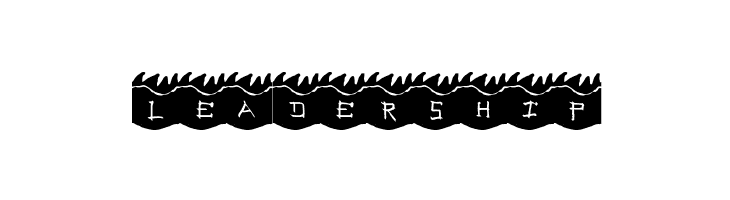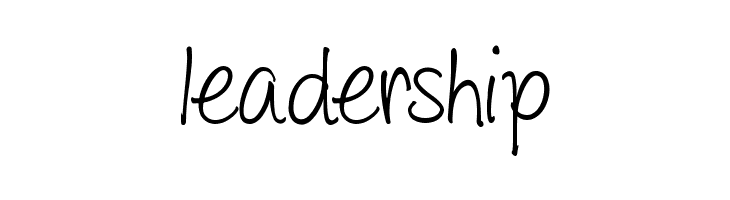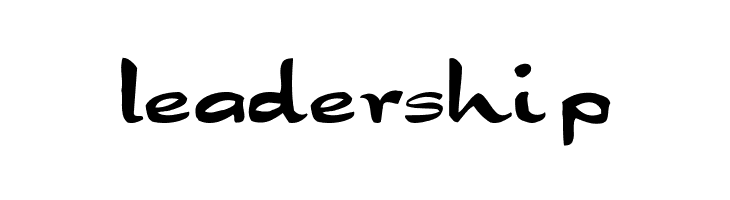
A bold, geometric font with a dynamic striped pattern for a modern, industrial look.
A whimsical, flowing font with script and decorative elements.
A playful, handwritten font with smooth curves and a whimsical style.
A playful, handwritten font with a whimsical and friendly style.
A bold, decorative font with a whimsical, cursive-like style.
A flowing script font with elegant curves and modern design elements.
A playful, marker-style handwritten font with smooth, rounded strokes.
A bold, geometric stencil-style font with a modern, edgy look.
A playful, hand-drawn font with tall, narrow characters and a whimsical style.
An edgy, gothic-style font with jagged edges and dynamic strokes.
Playful handwritten sans-serif with tall, narrow letters.
A playful, casual handwritten font with irregular, organic letterforms.
A bold, geometric font with a strong, cohesive design ideal for impactful headlines.
A playful and whimsical font with flowing, irregular strokes and dynamic characters.
A playful, handwritten-style font with bold, dynamic strokes.
A bold, italic script font with dynamic and flowing letterforms.
An elegant, cursive italic font with smooth curves and a sophisticated style.
A whimsical, cursive font with an artistic and flowing handwriting style.
A casual, elegant handwritten font with fluid, connected letterforms and dynamic rhythm.
A modern, rounded sans-serif font with a clean and approachable design.
A bold, rounded sans-serif font with a modern and friendly appearance.
A modern, italic sans-serif font with a sleek and dynamic style.
A casual, handwritten font with a playful and dynamic style.
A bold, distressed font with an urban, graffiti-like texture.
A bold, condensed font with high contrast and a modern style.